I have to create simmilar font type and effect like on the pic.
That was created with some apps on Iphone.
If someone knows how can I do that, I will be verry greatfull.
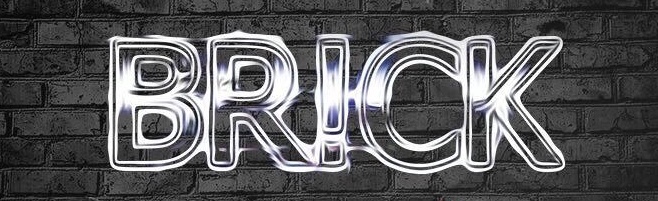
Are you going to re-create this in Photoshop?
If so there are about a million and one tutorials for Text Effects for Photoshop. I would search for Metal text effects on Google and look through the images to find one close to what you are looking for and follow that tutorial.
Yes, I wanna re-create this. But i don’t have idea how can I start.
I gonna looking for metal effect.